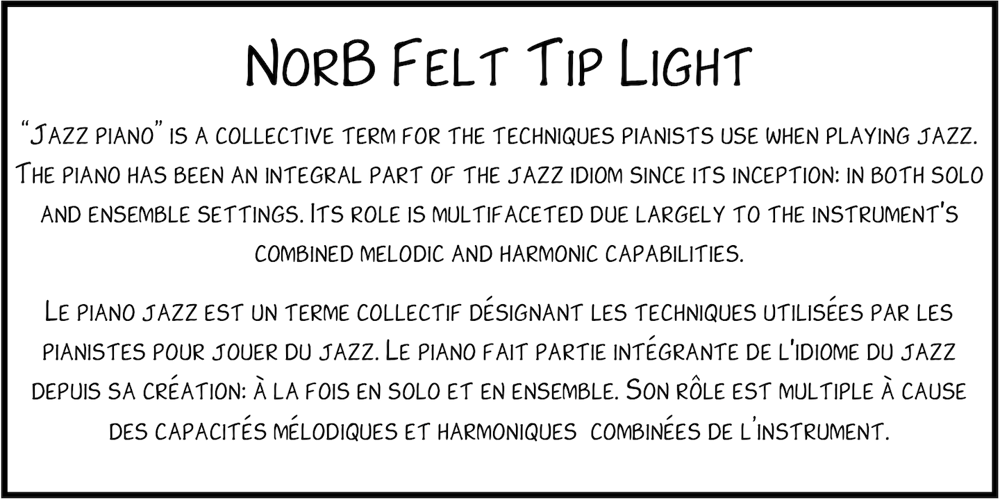
NorB Felt Tip Font Family was designed by Nor Eddine Bahha and published by NorFonts. NorB Felt Tip contains 8 styles and family package options. NorB Felt Tip was inspired from the lettering of my grand-brother Med Bahha who taught several kinds of letterings. It is a handwritten text font mimicking a felt pen and can be used with any word processing program for text and display use, print and web projects, apps and ePub, comic books, graphic identities, branding, editorial, advertising, scrapbooking, cards and invitations and any casual lettering purpose… or even just for fun! NorB Felt Tip comes with 6 weights each with their matching italics and in a Light, Normal, Bold and Heavy version.